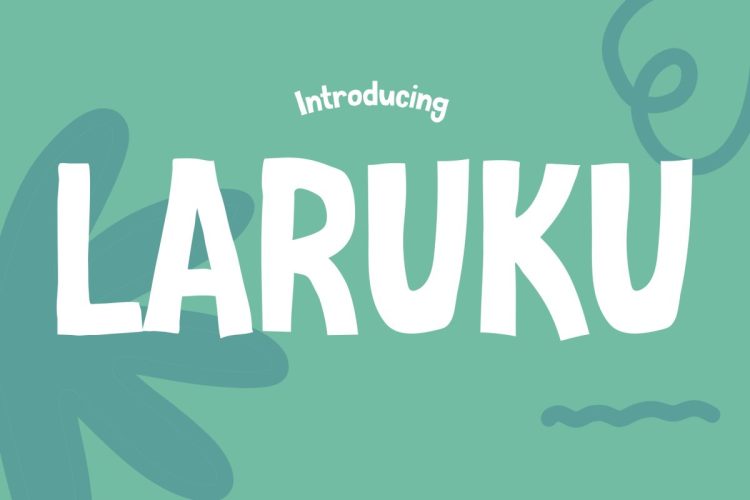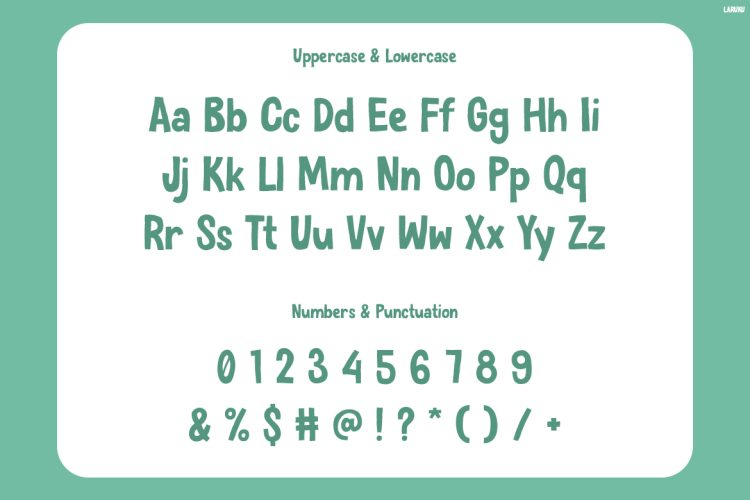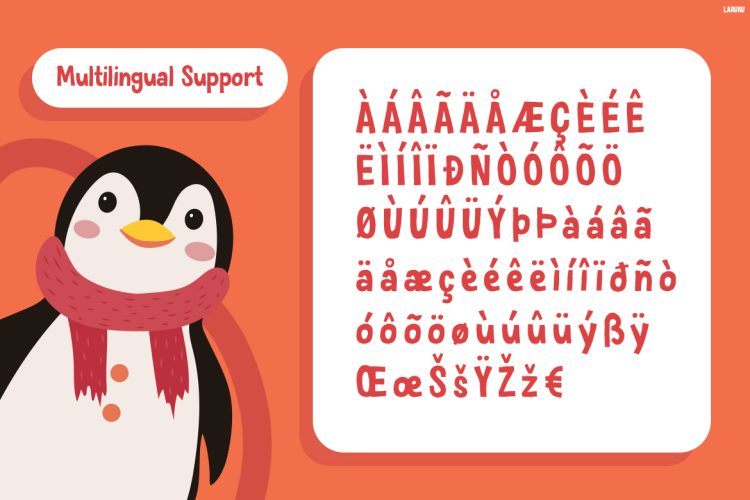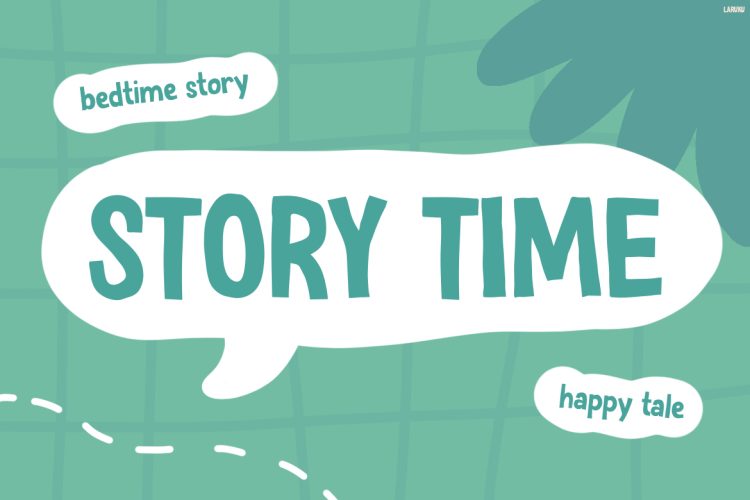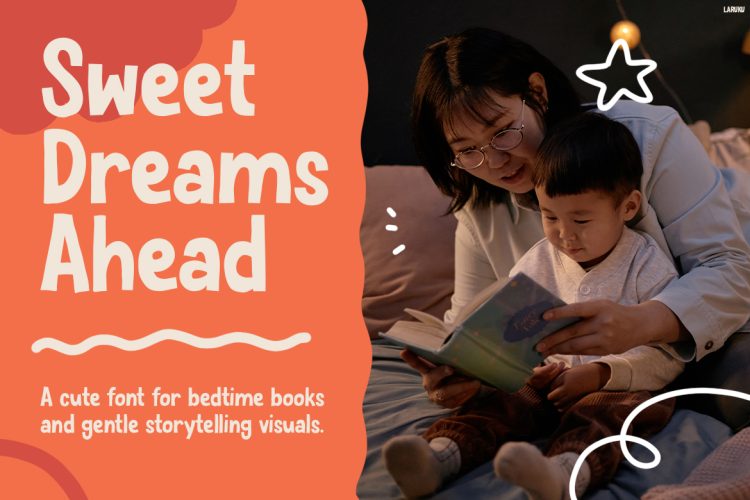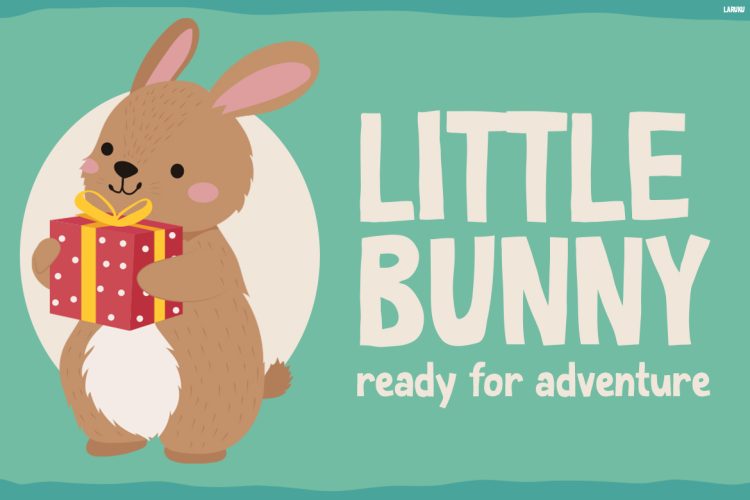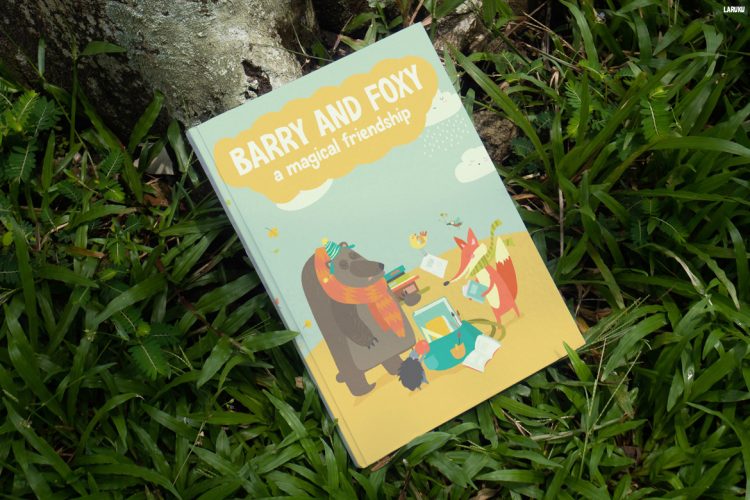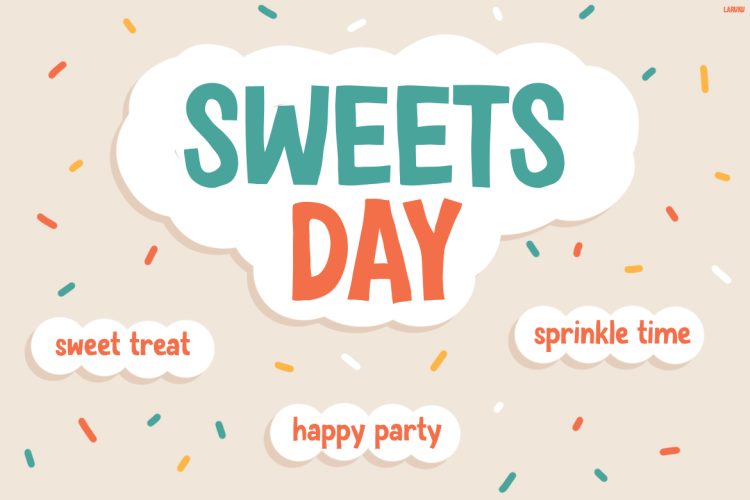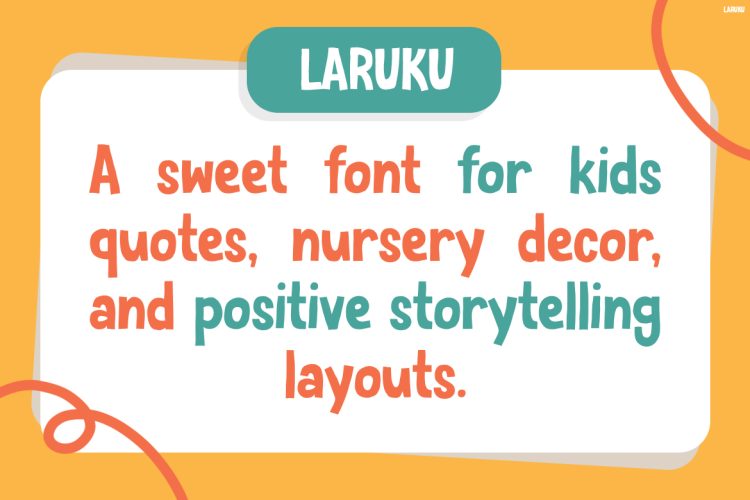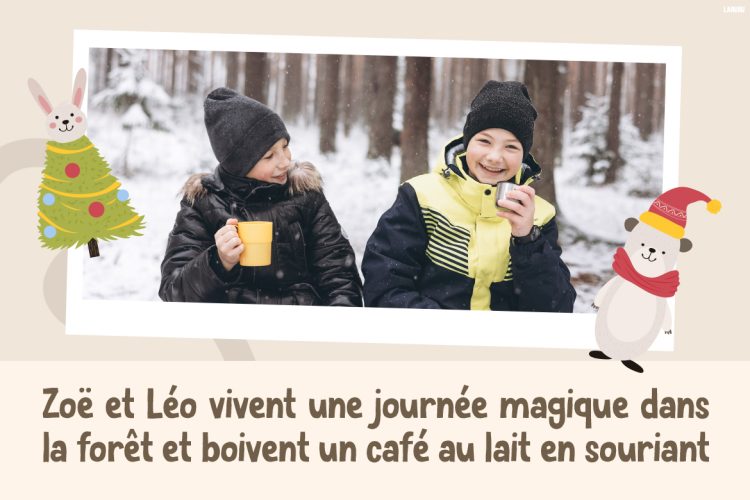
Laruku โ Playful Kids Display Font for Joyful Stories & Creative Designs
Kids Font Laruku instantly captures attention with its cheerful, hand-drawn character and soft, rounded shapes that radiate warmth and friendliness. Designed with a playful spirit, this font brings a natural, childlike charm that feels both expressive and easy to read. Its slightly irregular strokes give it a lively personality, making every word feel dynamic and full of imagination. Whether used in bold headlines or gentle storytelling layouts, Laruku delivers a delightful visual rhythm that enhances emotional connection. Moreover, its versatility allows it to adapt seamlessly across various creative needs, from fun branding to educational materials. Supporting 67 languages, it ensures wide usability for global audiences without losing its unique aesthetic appeal.
Kids Font Laruku is a sweet and engaging display font crafted specifically for kid-centric designs. It blends playful curves with a clean structure, making it ideal for both decorative and functional use. In addition, the font maintains excellent legibility even in longer text, which is essential for childrenโs content. From storybook covers and nursery decorations to social media graphics and educational posters, Laruku adds a sense of joy and friendliness. Its warm tone makes every design feel inviting, while its handcrafted style adds authenticity and creativity to your visual storytelling.
This font is perfect for designers, illustrators, educators, and content creators who focus on childrenโs themes. It works beautifully for kidsโ book authors, preschool brands, toy packaging designers, and parenting bloggers. Furthermore, itโs an excellent choice for digital creators producing Instagram content, YouTube thumbnails, or printable worksheets. If your audience includes kids, parents, or family-oriented communities, Laruku provides the perfect visual voice to communicate fun, warmth, and positivity.